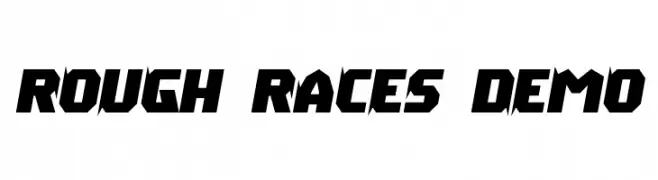
A bold, playful font with thick, rounded strokes and whimsical curves.
A bold, modern font with sharp angles and a strong presence.
A classic, elegant script font with bold, flowing letterforms and high contrast.
( Rigoletto )
A graceful script font with flowing, connected strokes and elegant flourishes.
An elegant script font with flowing, cursive strokes and graceful curves.
A graceful, handwritten script font with elegant curves and fluid lines.
A bold, expressive script font with fluid, cursive letterforms and elegant flourishes.
A playful, bold handwritten font with smooth curves and rounded edges.
A playful, decorative font with whimsical serifs and exaggerated curves.
A whimsical and decorative font with playful serifs and artistic details.
A bold, expressive handwritten font with dynamic curves.
A lively, handwritten font with fluid, expressive strokes.
A bold, expressive script font with a hand-painted, brush-like appearance.
An elegant script font with flowing, cursive characters.
A dynamic, cursive script font with expressive, flowing strokes.
A playful, handwritten font with quirky details and a whimsical style.
A flowing, elegant handwritten font with connected uppercase and unique lowercase letters.
A cursive, handwritten font with fluid, connected letters and medium contrast.
A bold, textured font with a cracked, rock-like appearance, perfect for impactful designs.
A bold, textured font with a cracked stone appearance and shadow effect.
A playful, hand-drawn font with a brush stroke style.
A cursive, handwritten-style font with elegant, flowing strokes.
A bold, dynamic font with a playful, three-dimensional style.
A bold, playful font with a three-dimensional, cartoonish style.
A smooth, flowing script font with connected letters and uniform strokes.
A rugged, textured font with a hand-carved, organic appearance.
A smooth, monoline script font with elegant, connected characters.
A bold, expressive script font with a dynamic, hand-drawn style.
A bold, brush-style font with a grunge texture and dynamic strokes.
A bold, decorative font with modern and vintage elements, featuring intricate curves and playful swashes.